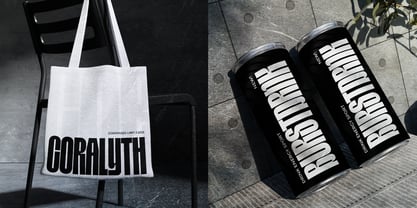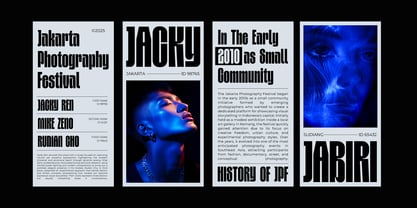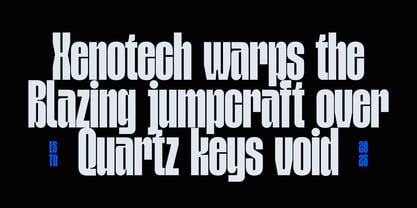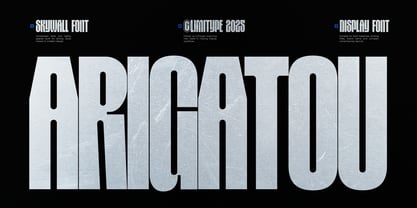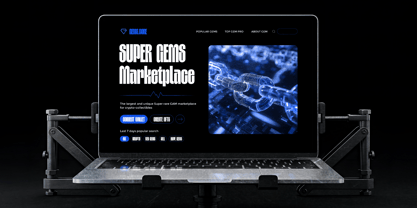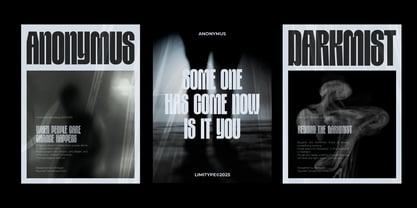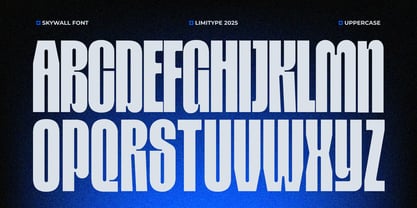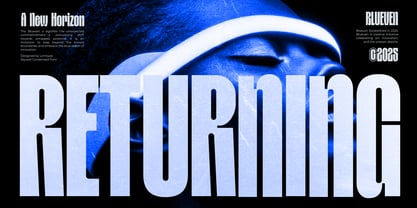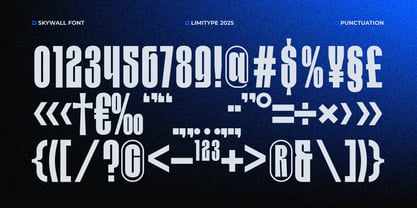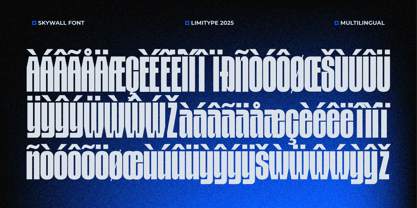
Skywall
by limitype
The Skywall Font Family was designed by Muhammad Muammar, Furqan Sudirman and published by limitype. Skywall contains 1 styles.
Skywall is a modern condensed font with tall, narrow, and bold letter proportions that deliver a strong futuristic impression. Its elongated and tightly spaced letterforms make every word appear solid, fast, and energetic, while still maintaining easy readability. With sharp curves and geometric angles, this font is ideal for sci-fi titles, urban themes, esports designs, posters, branding, tech interfaces, and headlines that aim to stand out. Skywall available with: Uppercase Lowercase Number Symbol Multilingual